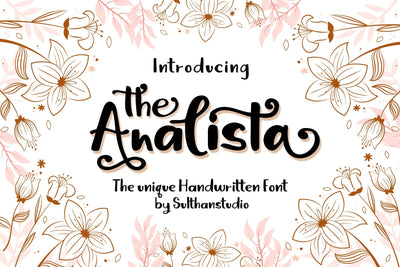
The Analista
Introducing The Analista
handwritten font with a different look, very fresh, made with ink on paper and then made into a very eccentric and adorable font
fonts are uppercase and lowercase numbers punctuation marks language support also uppercase and lowercase alternatives